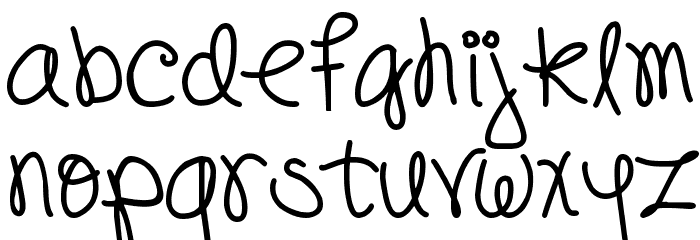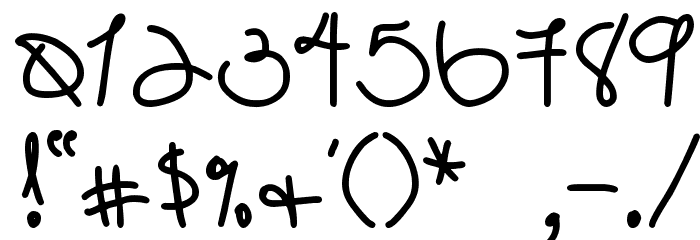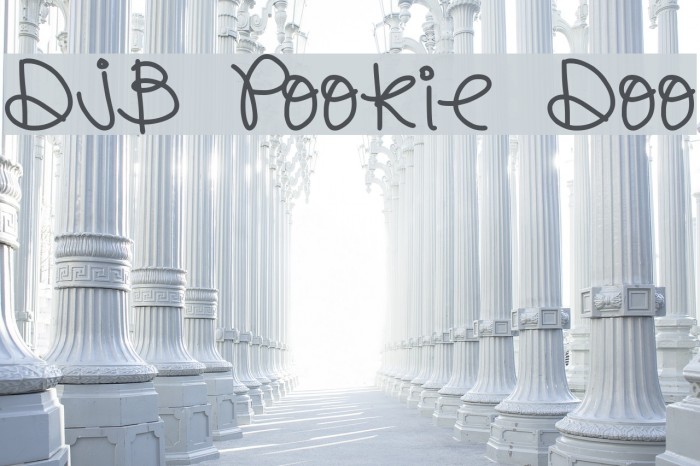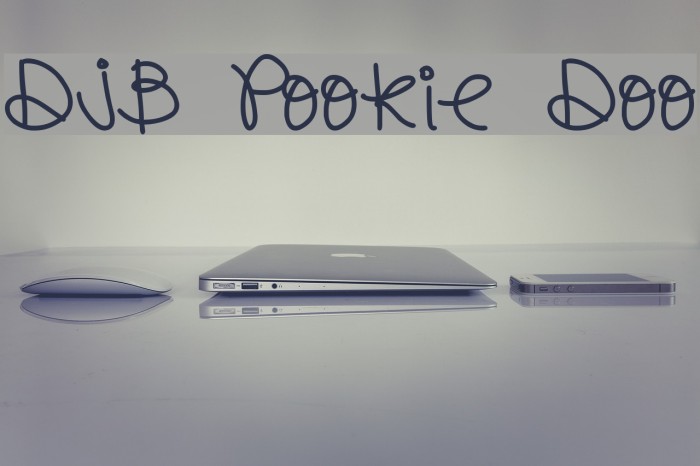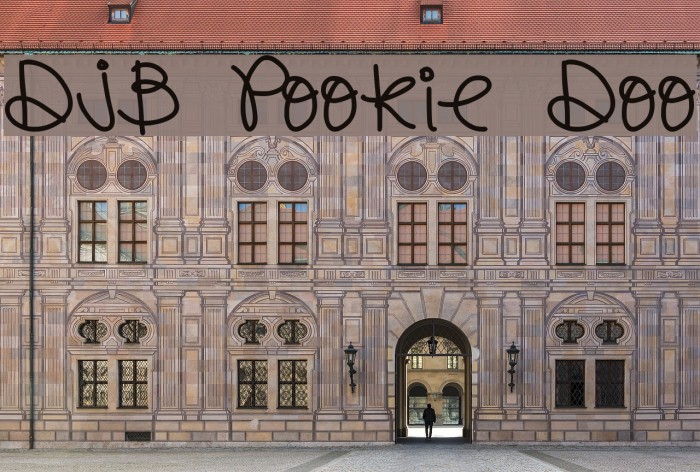
DJB Pookie Doo Font
This playful and whimsical font features a handwritten style with a casual, friendly appearance. The letters are rounded and slightly irregular, giving it a charming, informal look. The uppercase and lowercase letters maintain a consistent style, with a slight slant and varying stroke thickness that adds to its hand-drawn feel. The numbers and special characters are equally playful, with unique shapes that complement the overall aesthetic. This font exudes a sense of fun and creativity, making it perfect for projects that require a personal touch.
A playful, handwritten font with a whimsical and friendly style.
- Font: DJB Pookie Doo
- Proposed Projects: Ideal for children's books, greeting cards, playful branding, and creative projects.
- Category: Handwritten
- Use Case: Headlines, Logos, Informal Text